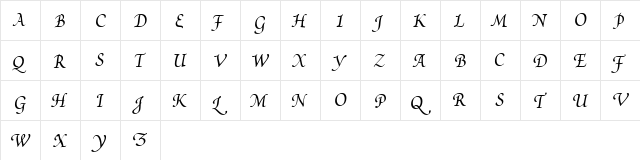
Poetica SuppSwashCapsI Italic
Design Context for Poetica SuppSwashCapsI Typeface
Poetica SuppSwashCapsI flows with the natural rhythm of handwritten lettering, making it ideal for designs that call for warmth and personal expression.
Font Pairing: Combine Poetica SuppSwashCapsI with a simple geometric sans for maximum contrast — the tension between flowing curves and clean structure is a classic typographic pairing.
Pro Tip: Pair Poetica SuppSwashCapsI with a clean sans-serif for supporting text. The contrast between fluid script and geometric structure creates an elegant typographic hierarchy.